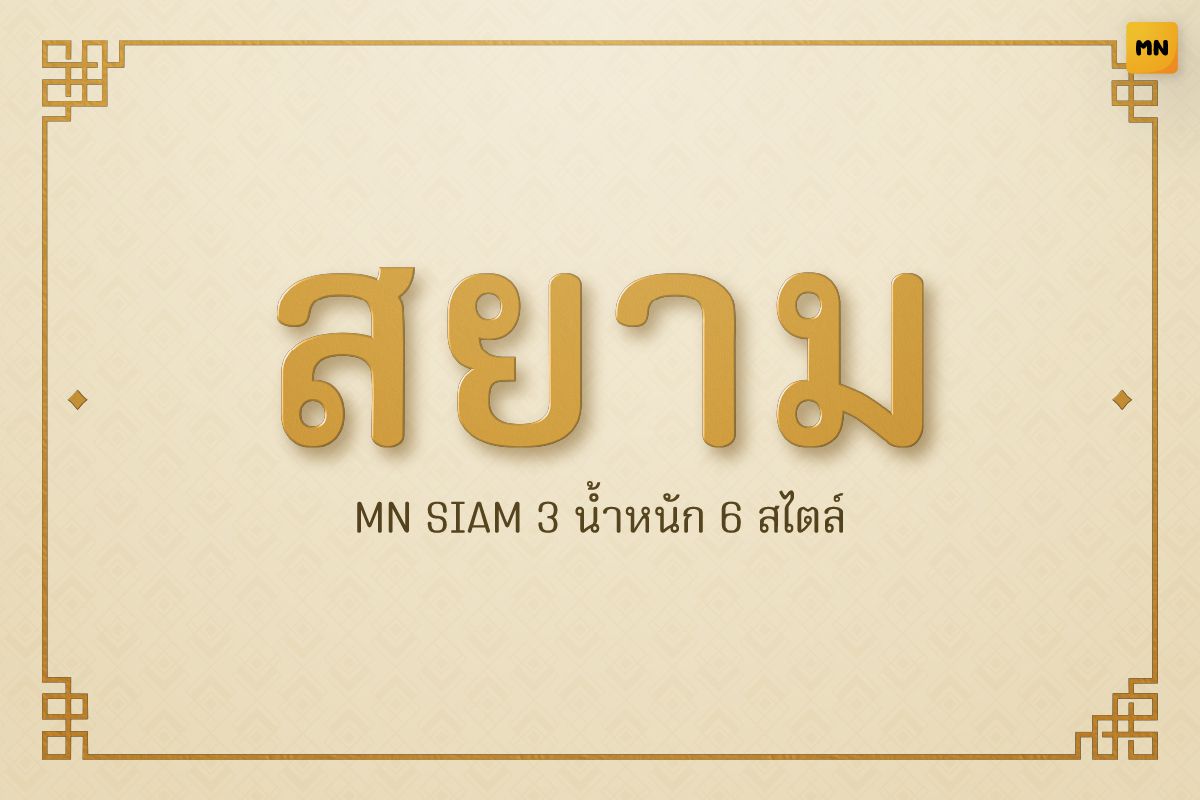
MN SIAM NEW Regular
A classic Thai font with a touch of traditional charm and modern simplicity. It features rounded edges and stable structure, suitable for elegant or Thai-themed designs such as signage, café branding, and editorial use.